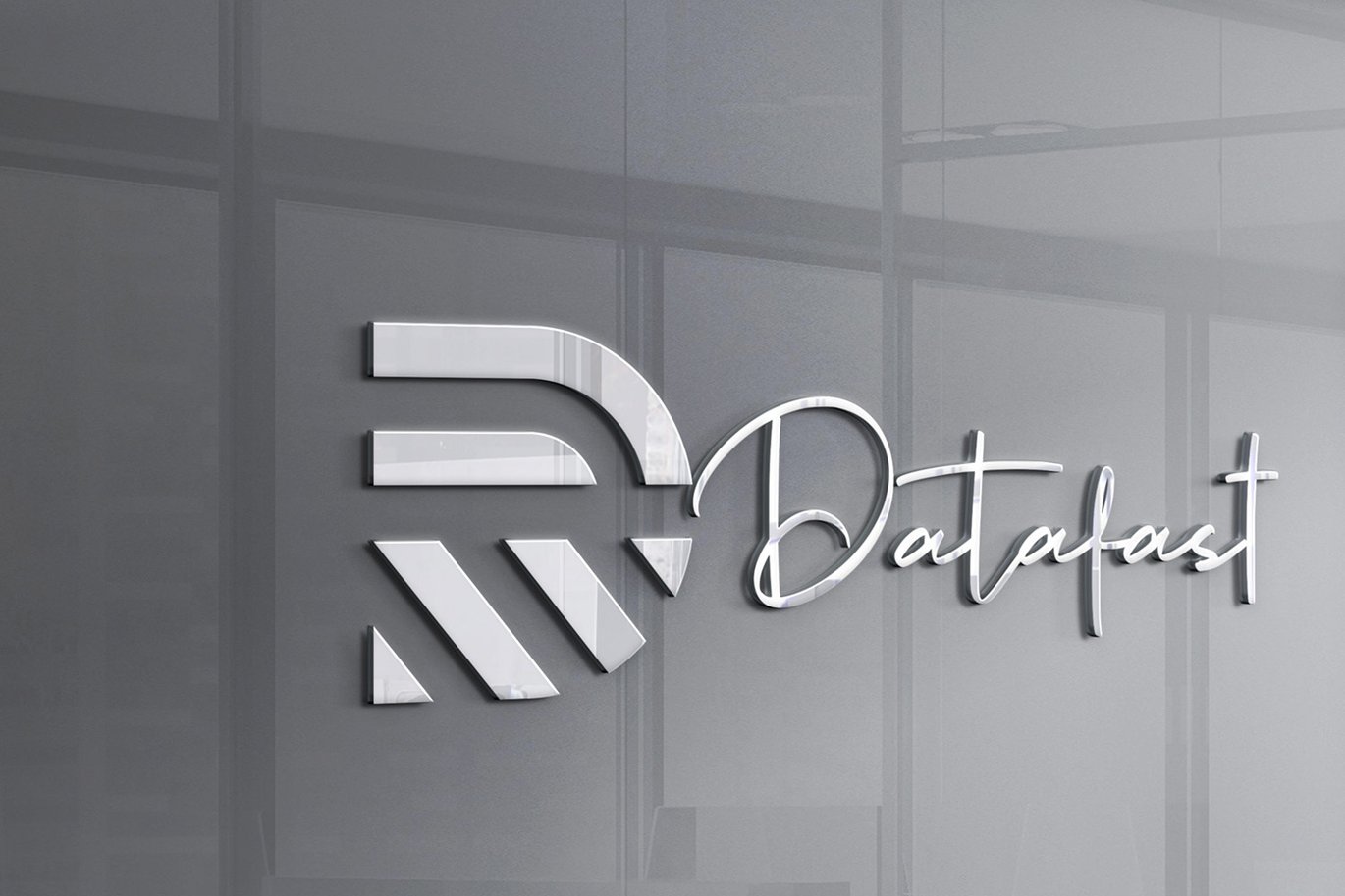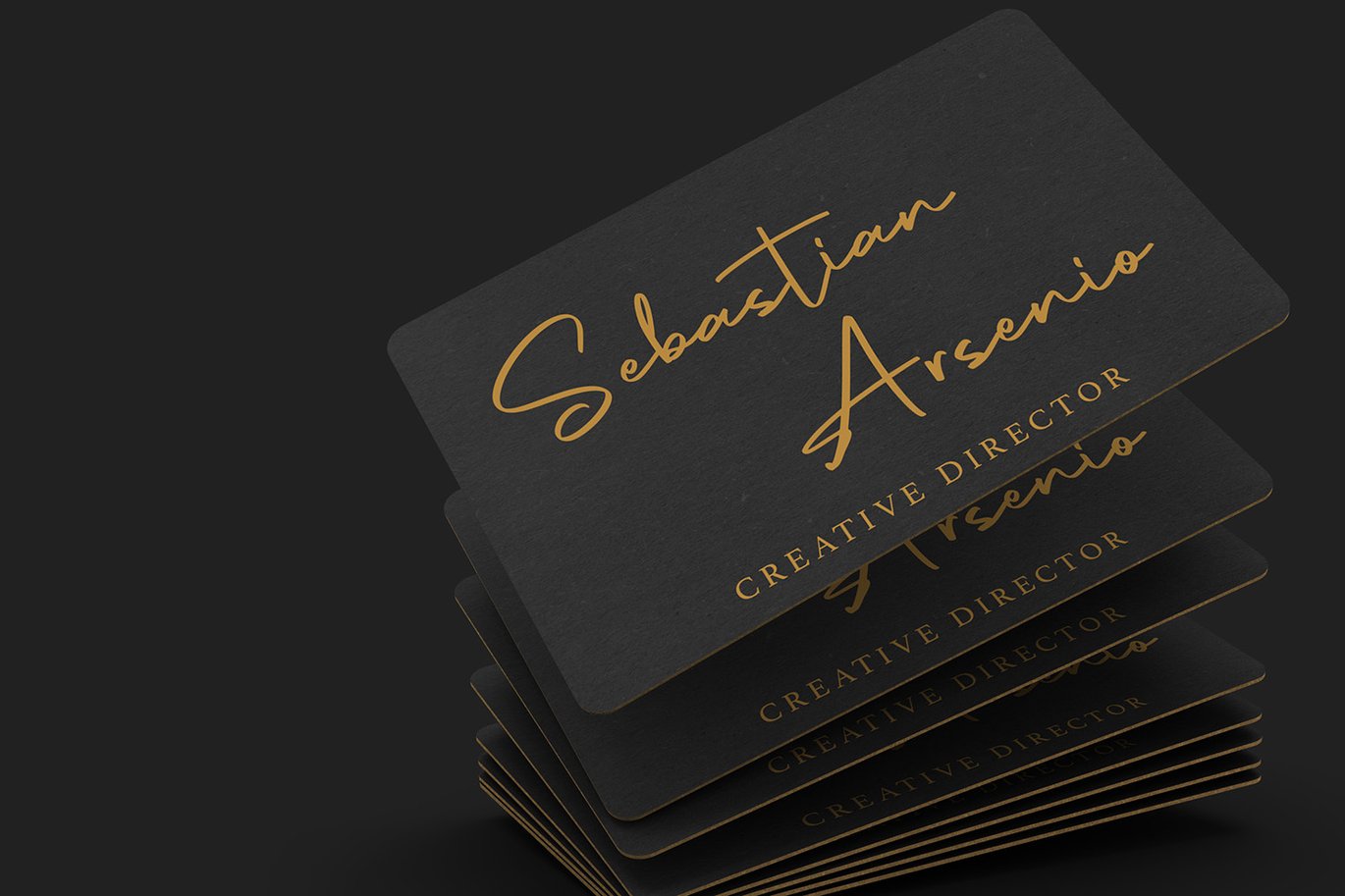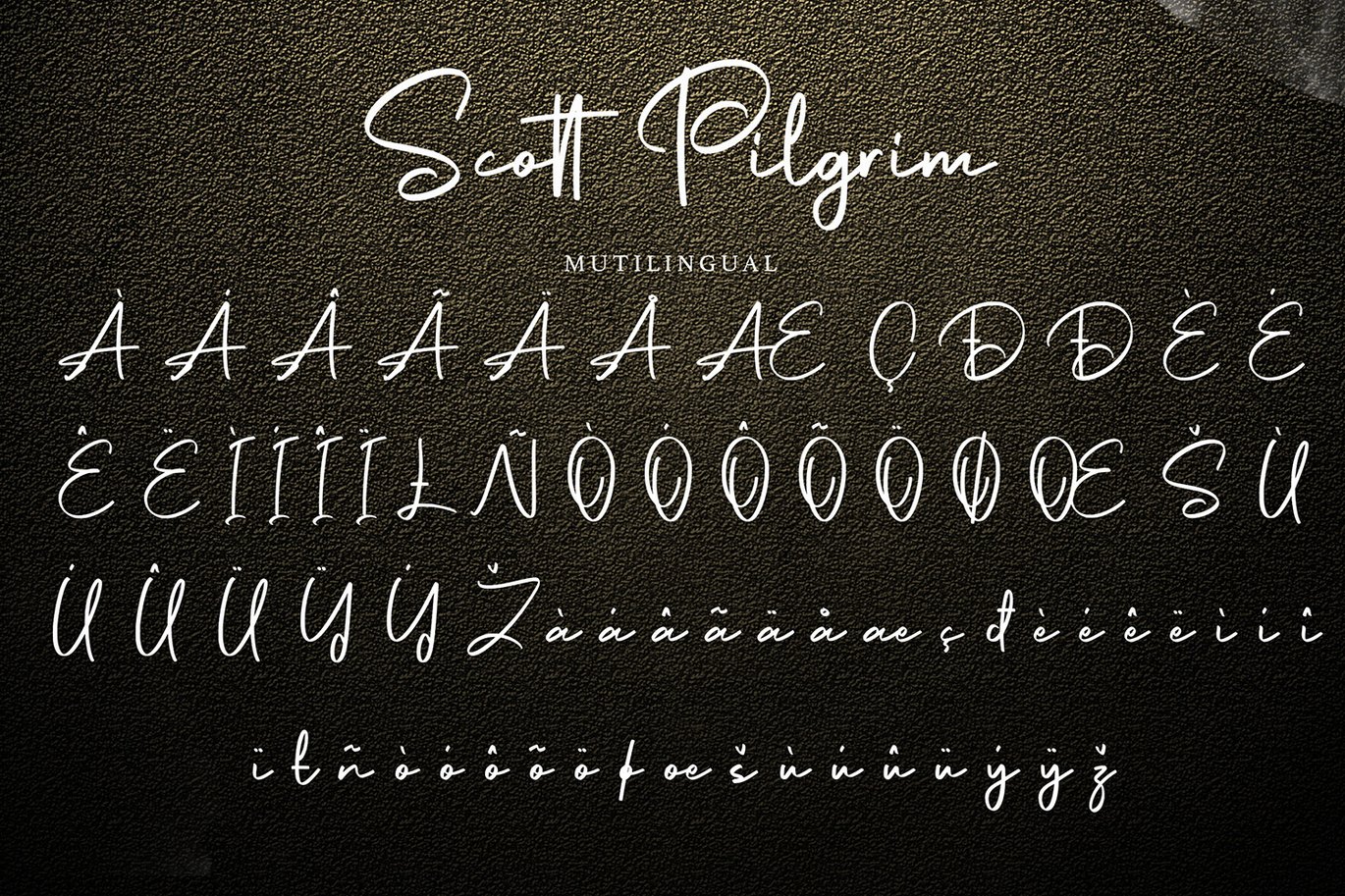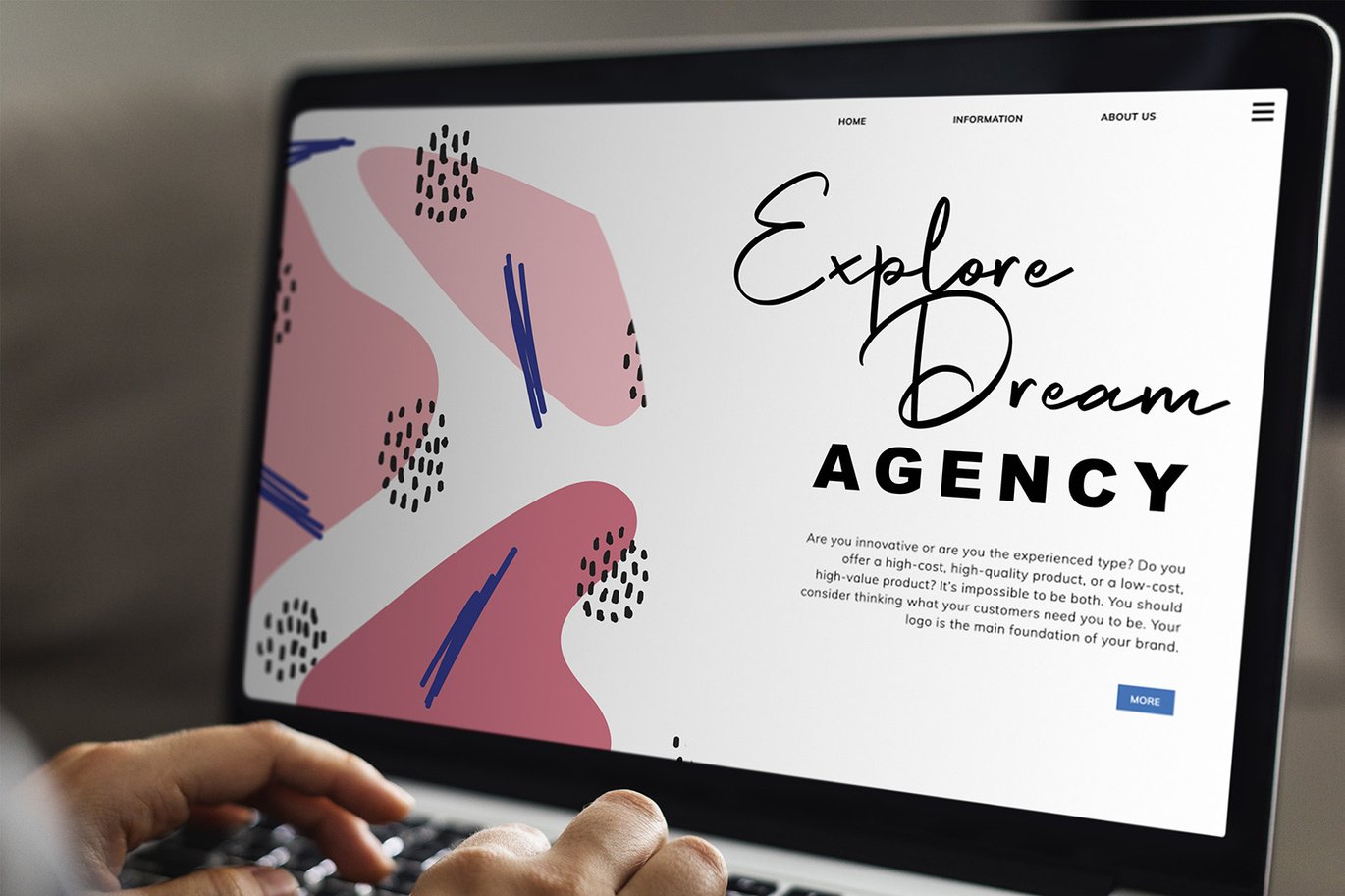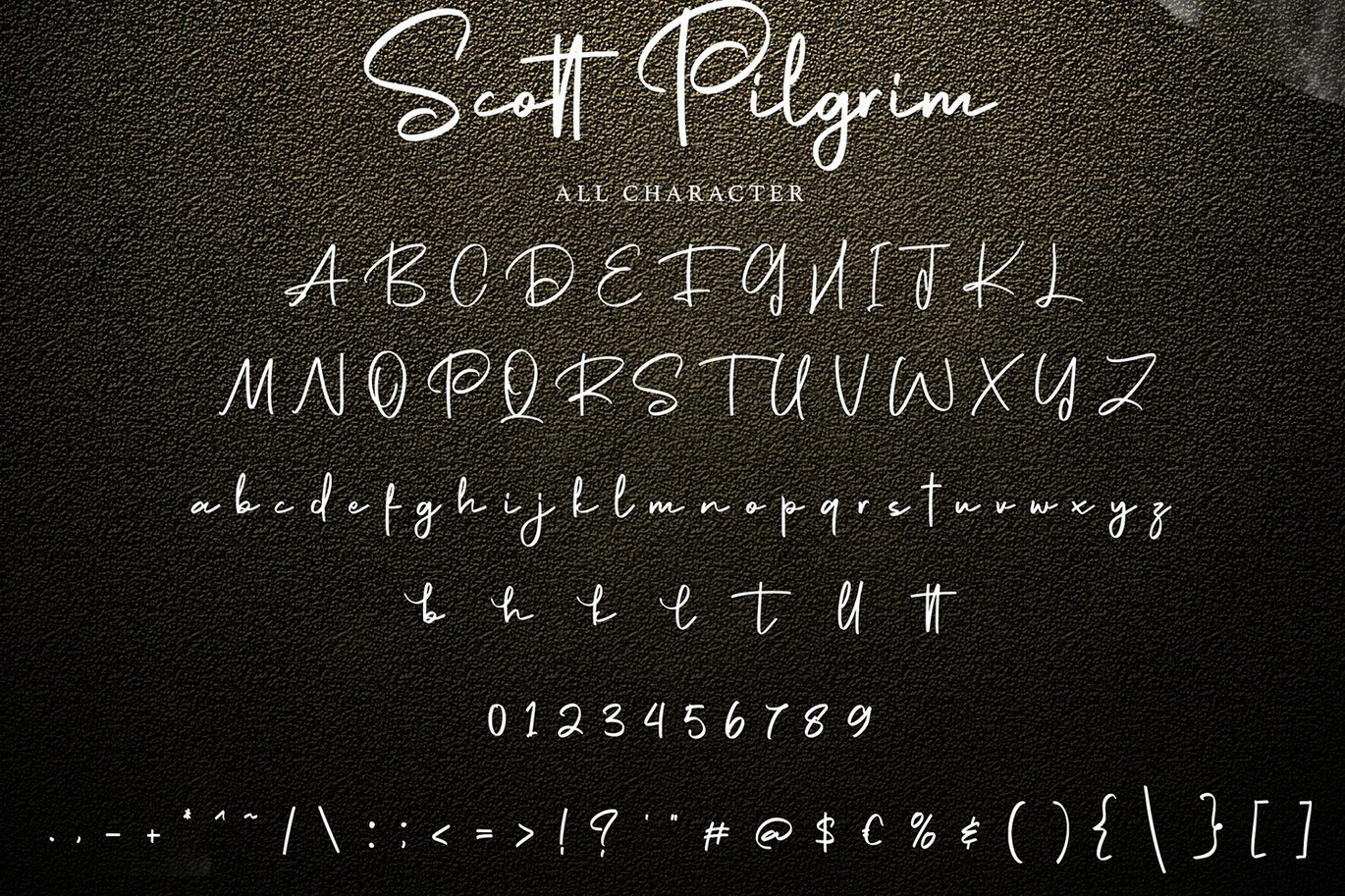
Scott Pilgrim | Handdraw Signature Font
Scott Pilgrim | Handdraw Signature Font with a calligraphy style, So beautiful on invitation like greeting cards, branding materials, business cards, quotes, posters, and more!